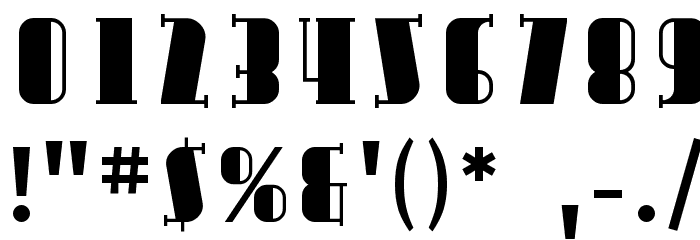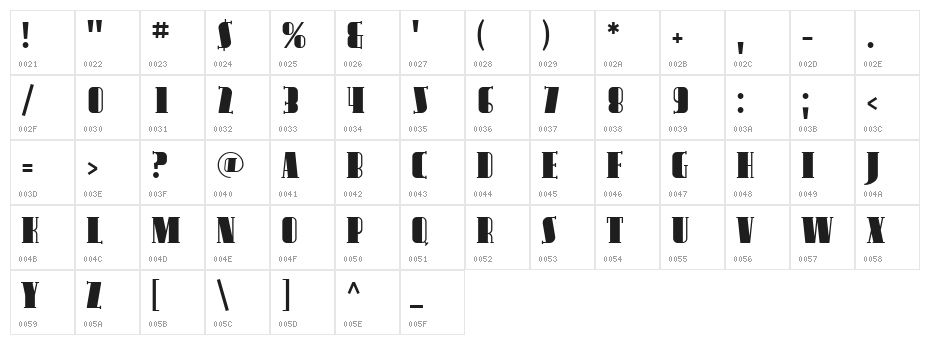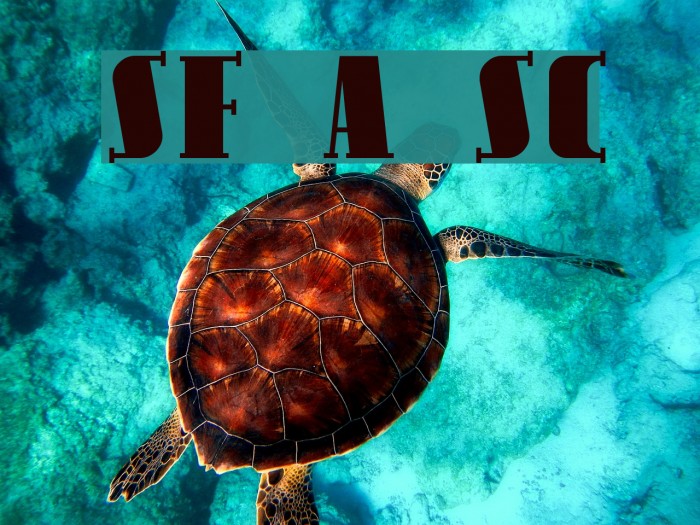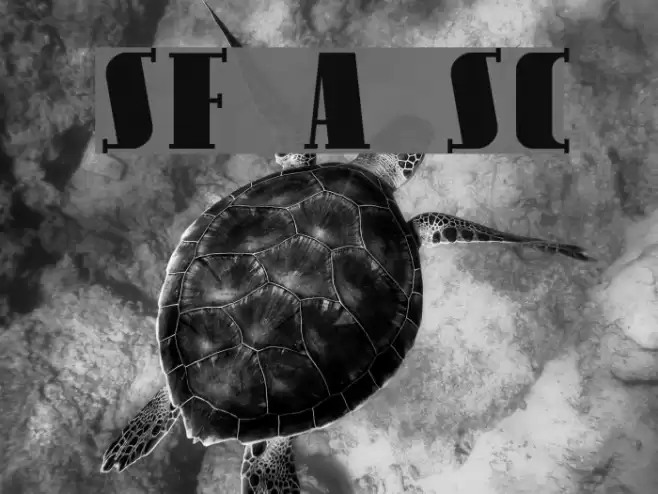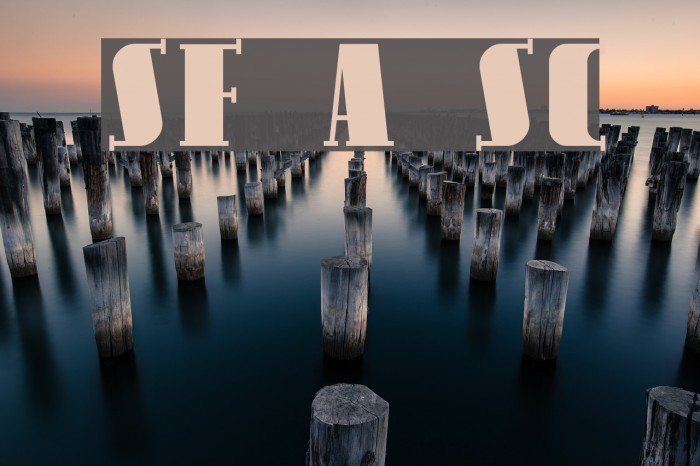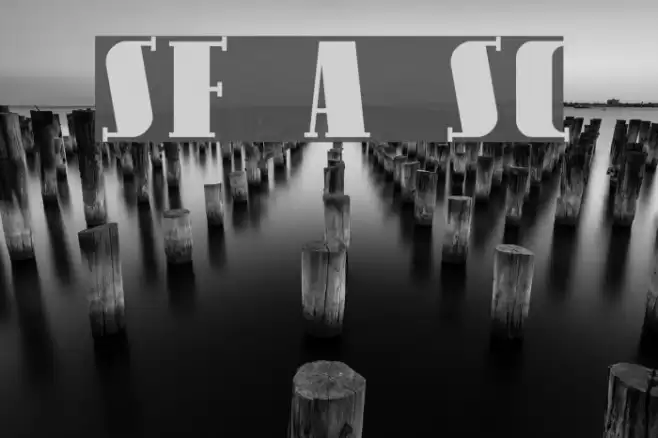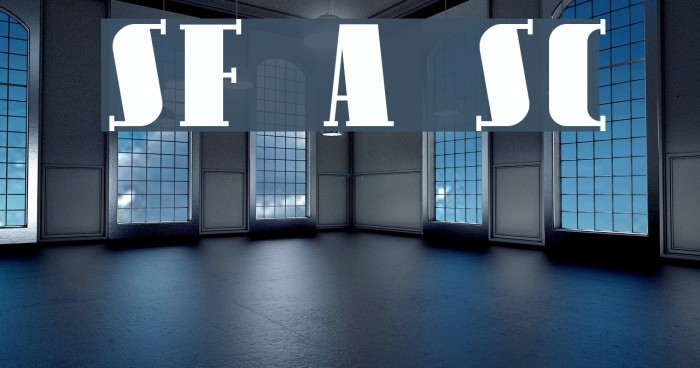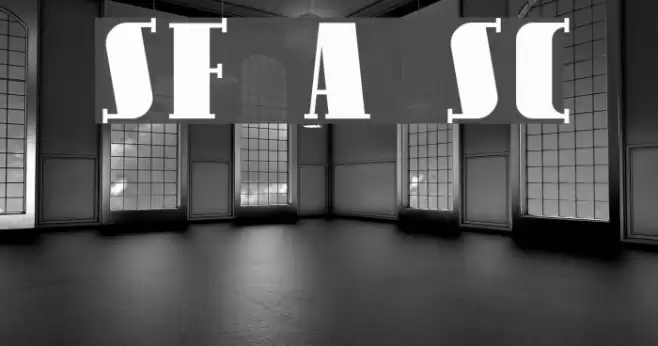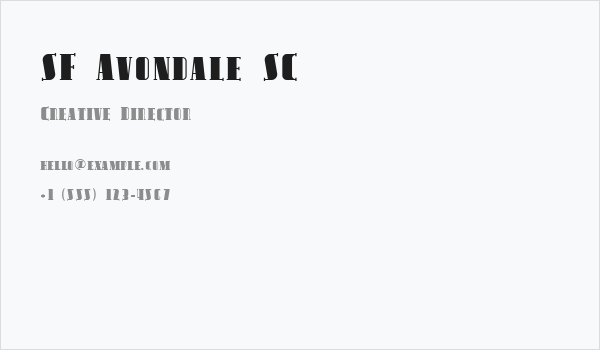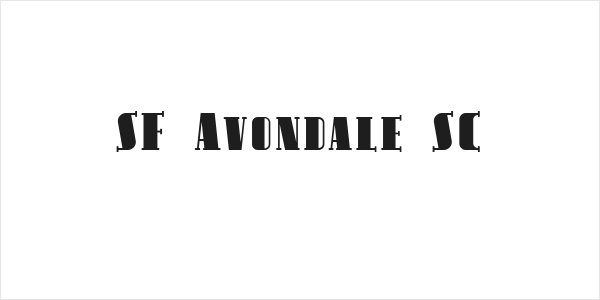
SF Avondale SC Font
SF Avondale SC Description
This font features a bold and striking design with a strong presence. The characters are tall and narrow, with a distinct vertical emphasis and sharp serifs that add a touch of elegance. The uppercase letters are particularly prominent, while the lowercase letters maintain a consistent style. The numbers are bold and easily readable, making them suitable for various applications. Special characters are included, each designed to match the overall aesthetic. The font's high contrast between thick and thin strokes enhances its visual impact, making it ideal for attention-grabbing headlines and titles.